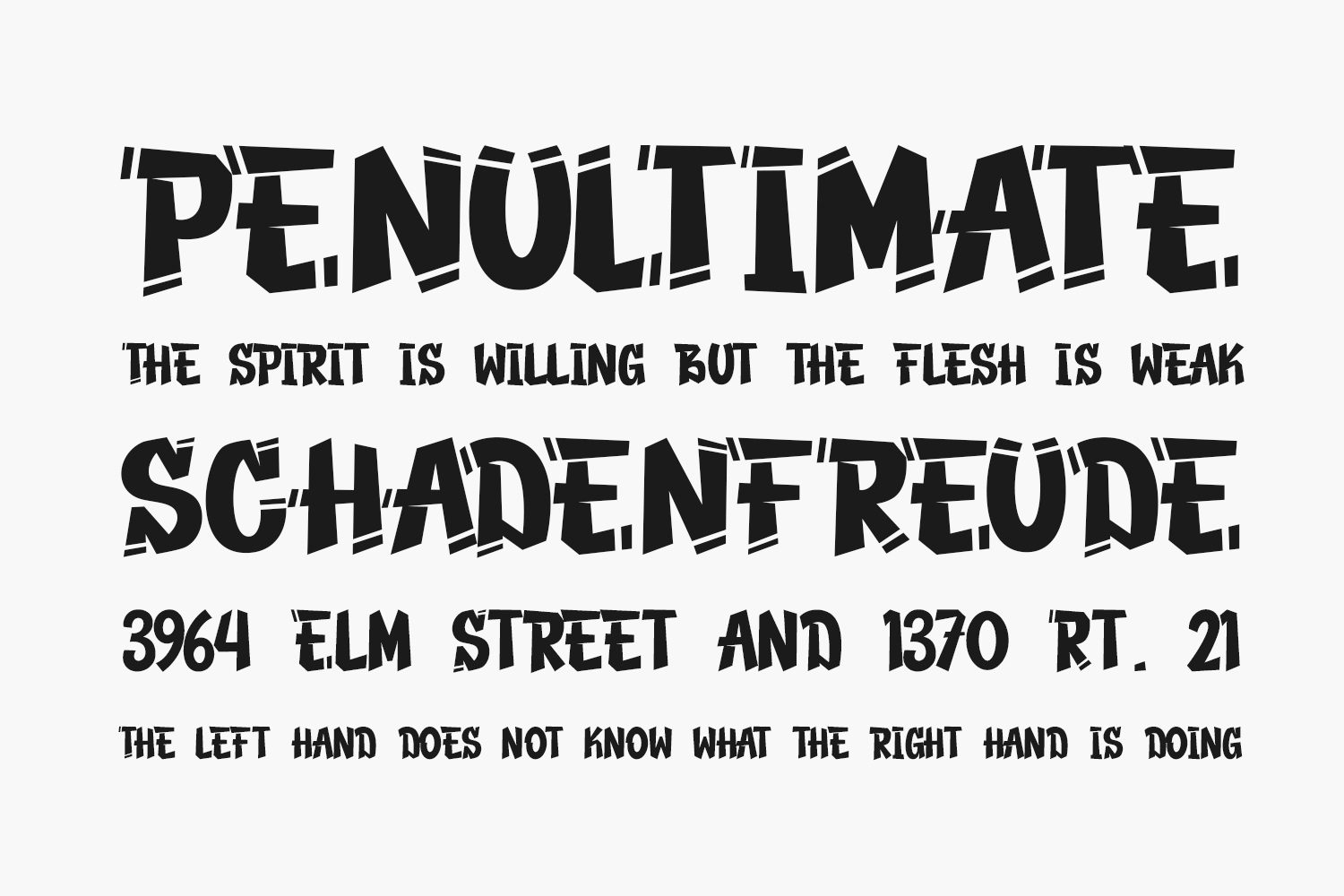
Rumbling Free Font Family is an impactful and thickly-lettered display font that exudes the playful essence and distinctive aesthetic of graffiti art. Infuse your urban and casual projects with this font, and witness the extraordinary results that will captivate your audience. Rumbling Free Font Family is free for personal use only. Please purchase the full version for commercial use.